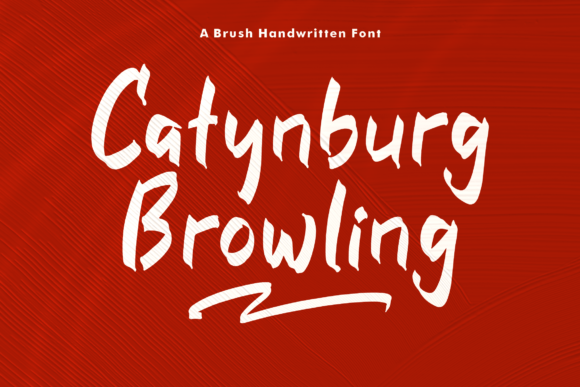
Immerse yourself in the captivating world of Catynburg Browling Font, a script font that exudes elegance and sophistication. Its meticulously crafted curves and swashes add a touch of personality to your designs, making them stand out from the crowd. With Catynburg Browling, your words will come alive, captivating your audience with their timeless beauty.
Catynburg Browling draws inspiration from the classic script fonts of yesteryear, capturing their charm and grace while infusing them with a modern twist. Its smooth, flowing lines evoke a sense of nostalgia, while its unique letterforms add a touch of contemporary flair. Whether you're creating logos, branding, or any other design project, Catynburg Browling is the perfect choice to add a touch of class and sophistication.
Designed by the talented Perspectype Studio, Catynburg Browling is a versatile font that can be used for a wide range of projects. Its brush-handwritten style lends itself perfectly to logos, branding, homeware designs, product packaging, and more. Its elegant curves and swashes add a touch of luxury to any project, making it ideal for creating high-end designs that demand attention.
Step into the realm of creativity with Catynburg Browling and let your imagination run wild. Its boundless possibilities will awaken your artistic spirit, inspiring you to create designs that leave a lasting impression. Embrace the beauty of script fonts and elevate your designs to new heights with Catynburg Browling.